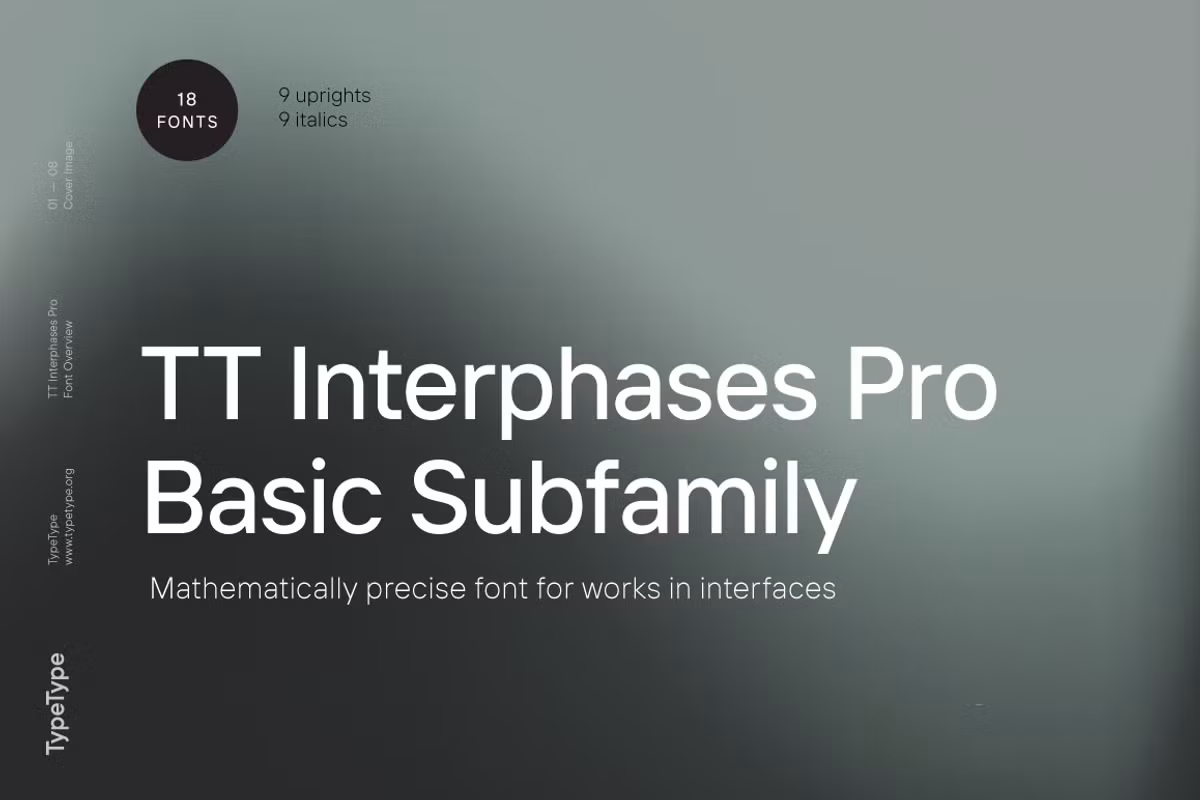
TT Interphases Pro Basic Free Download is a highly functional sans-serif font designed with user interfaces and digital products in mind. Clean, modern, and legible at any size, this typeface is ideal for web design, apps, dashboards, and tech branding. Its neutral tone and well-balanced letterforms make it versatile for both display and body text.
Created by TypeType, this font includes essential weights and styles, optimized for screen use and supported on both Mac and Windows systems. It also features multilingual support and excellent kerning for a smooth reading experience.